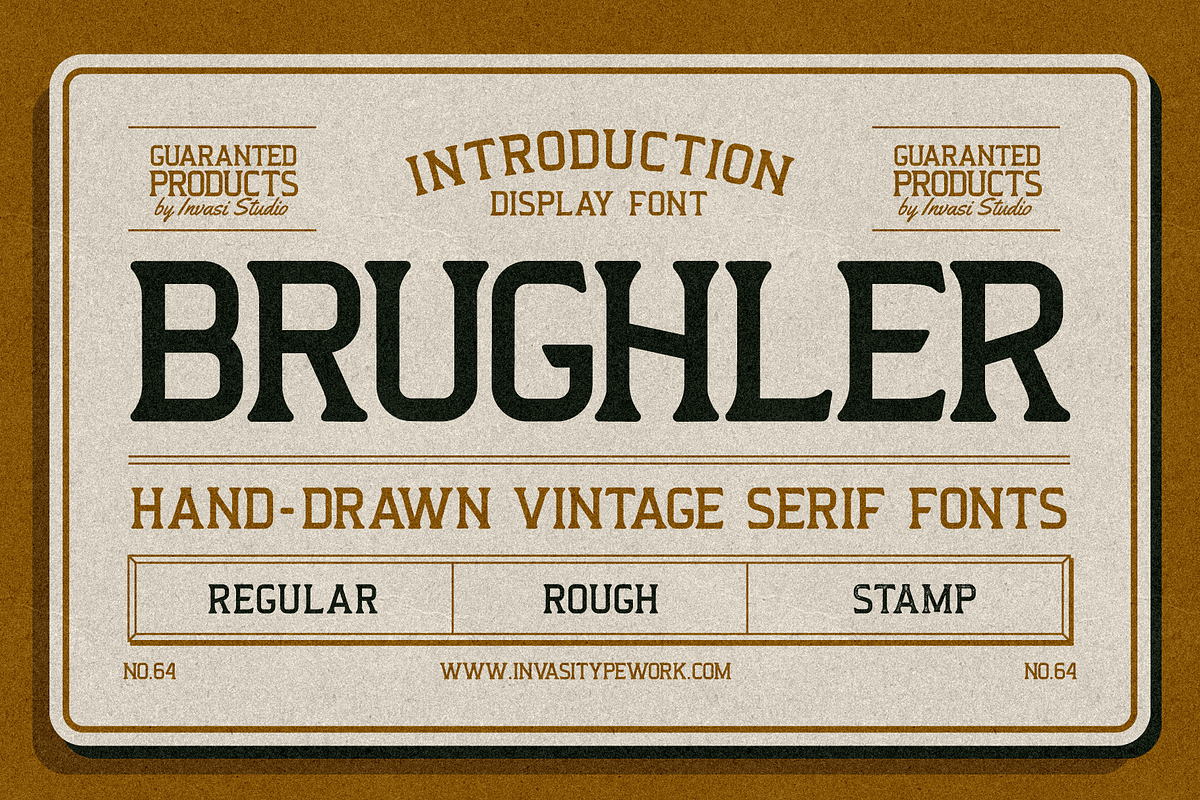
Brughler Vintage Serif Display Font Free Download is a bold, characterful typeface that brings retro charm and timeless elegance to your designs. With its robust serifs, classic proportions, and vintage-inspired details, this font is perfect for branding, headlines, posters, packaging, and editorial layouts that call for a sophisticated, old-world aesthetic.
Whether you’re crafting a vintage brand identity, designing a striking event poster, or creating a classic book cover, Brughler brings authenticity, style, and refinement to your typography. It’s the perfect font for designers who love vintage aesthetics with a modern edge.